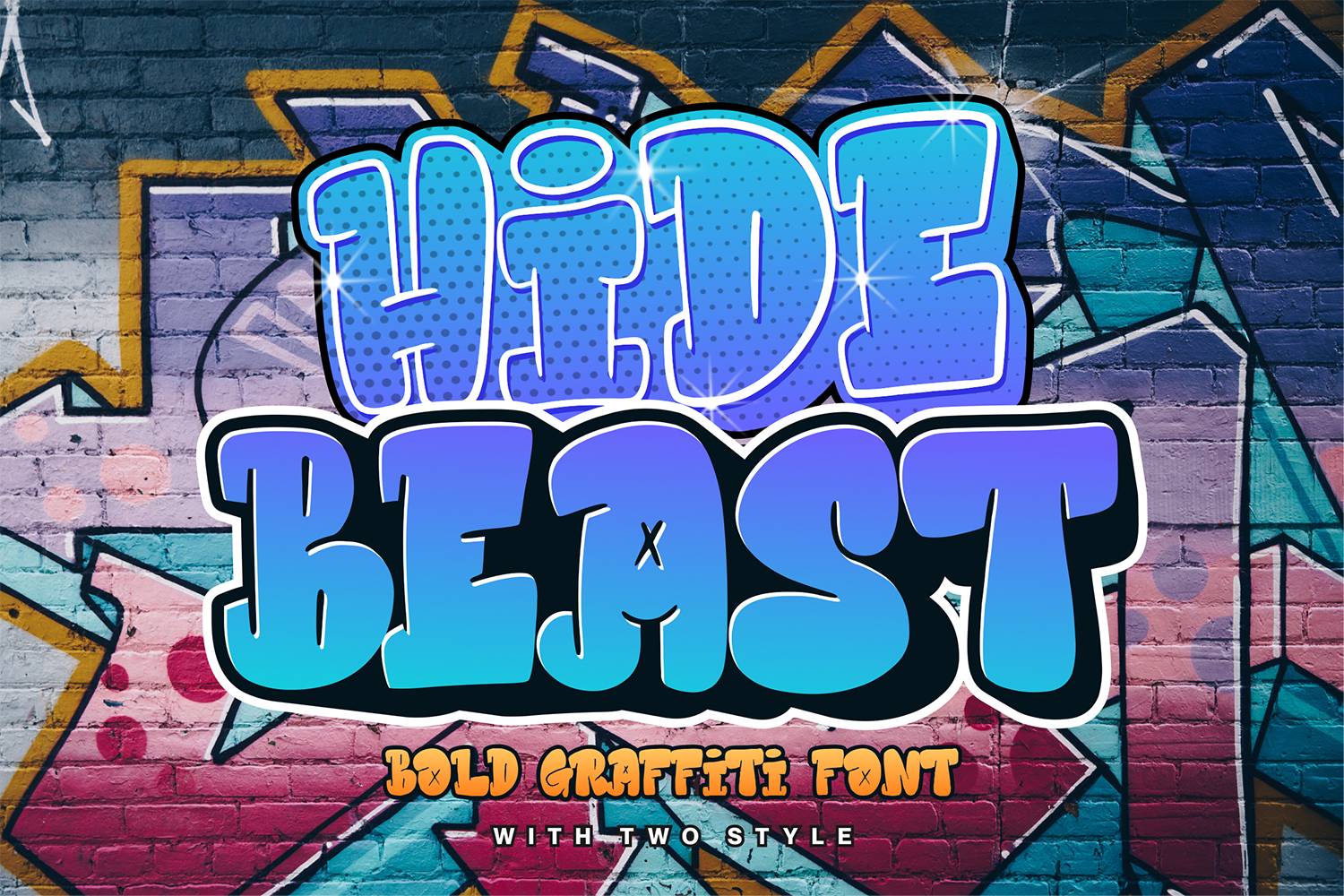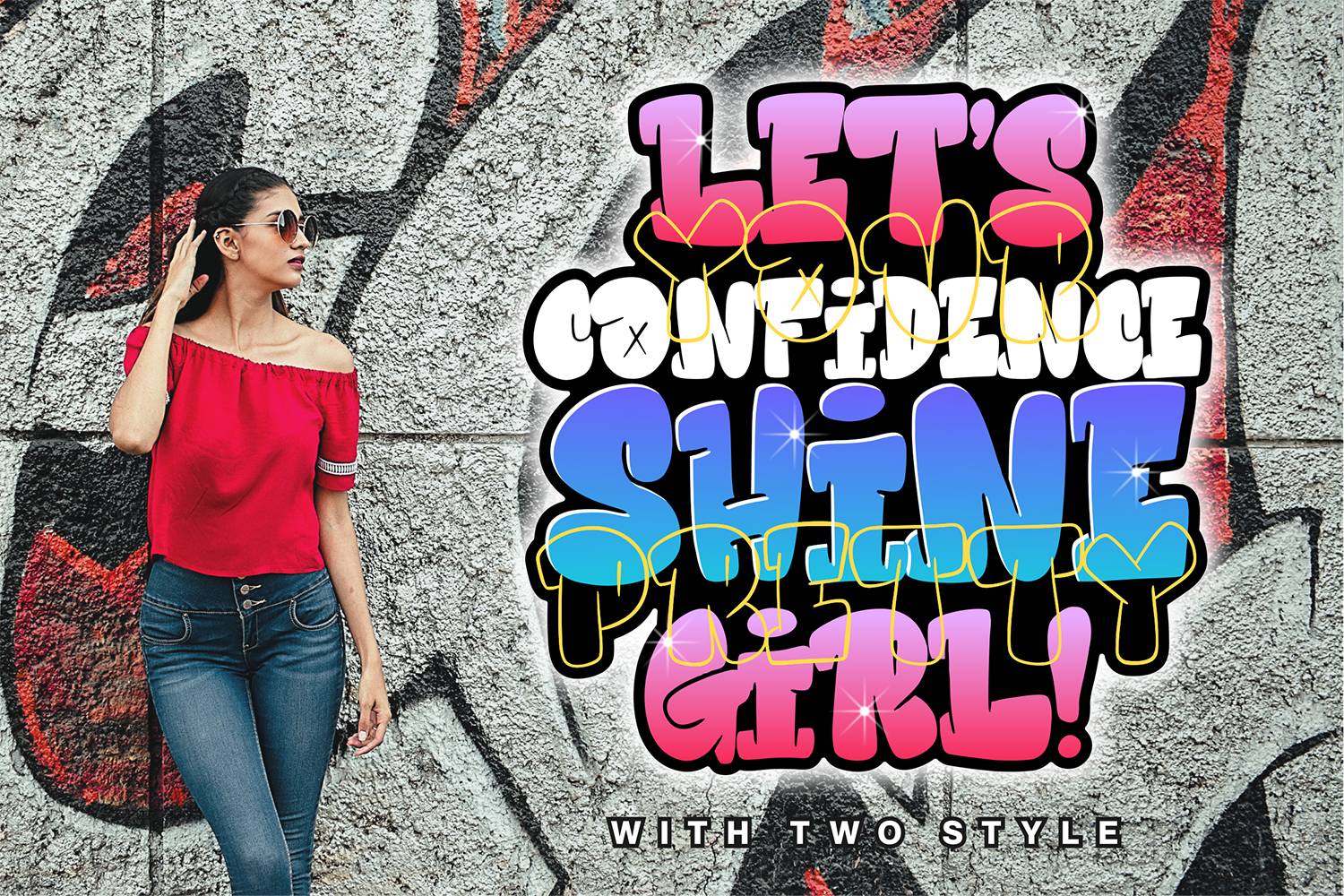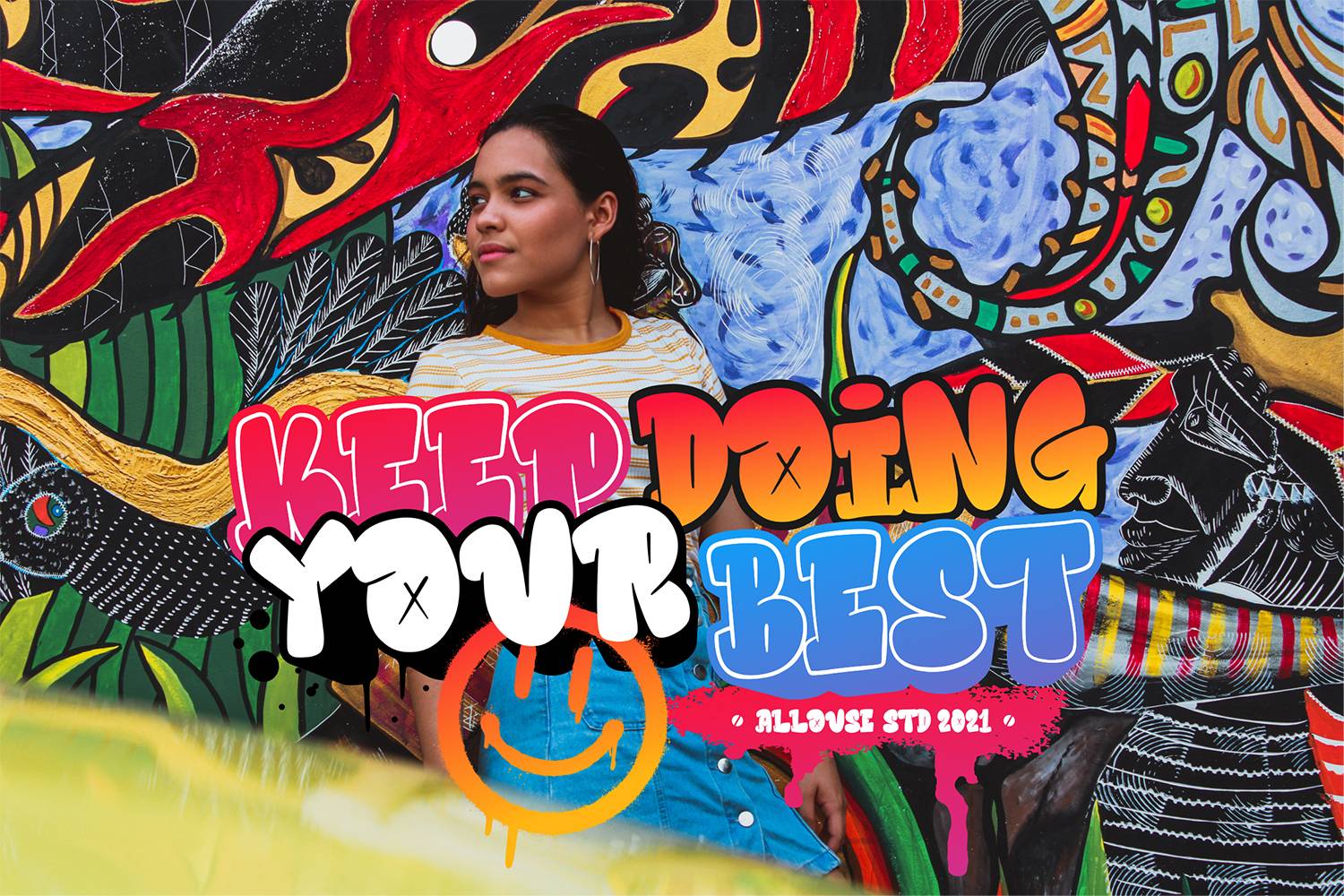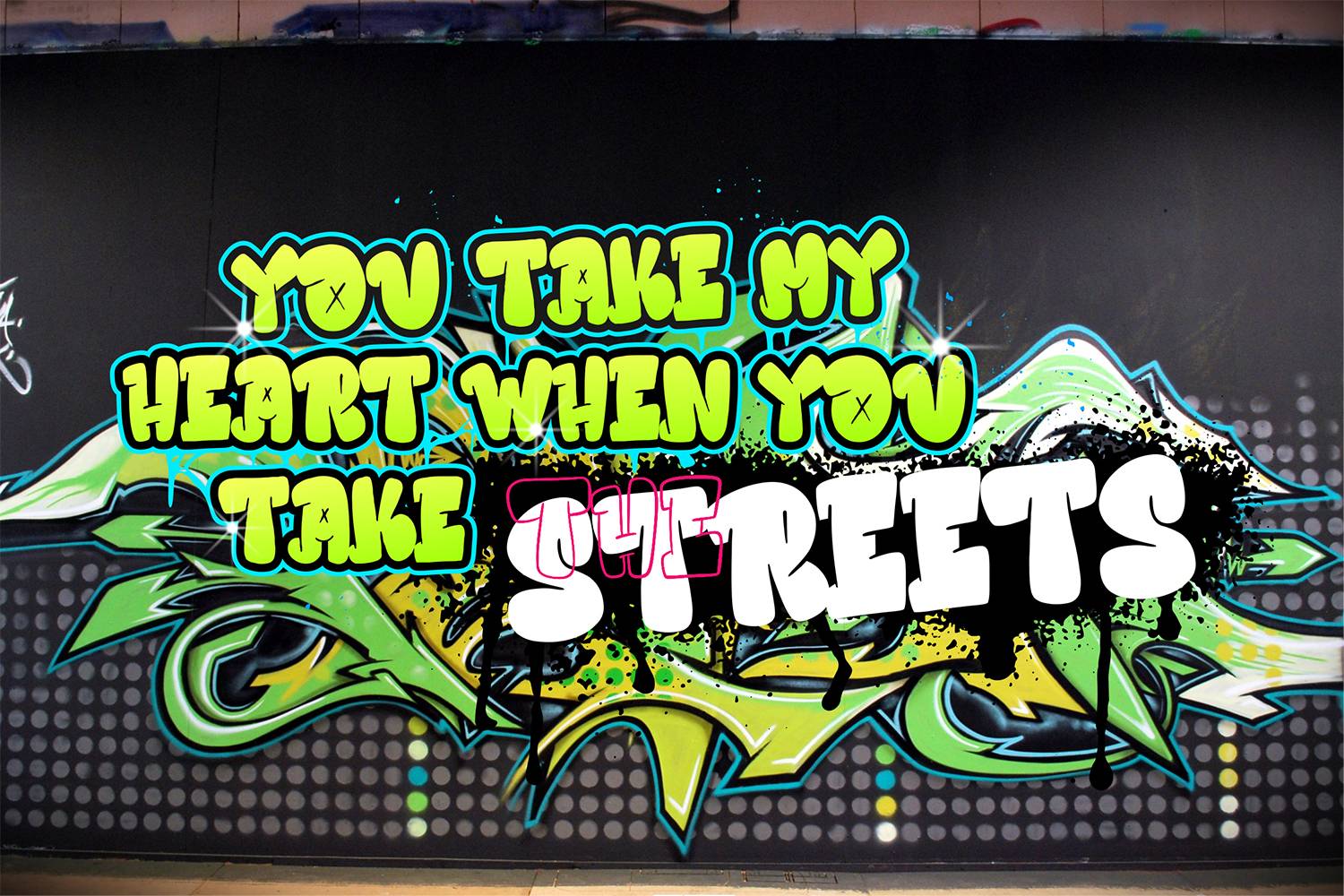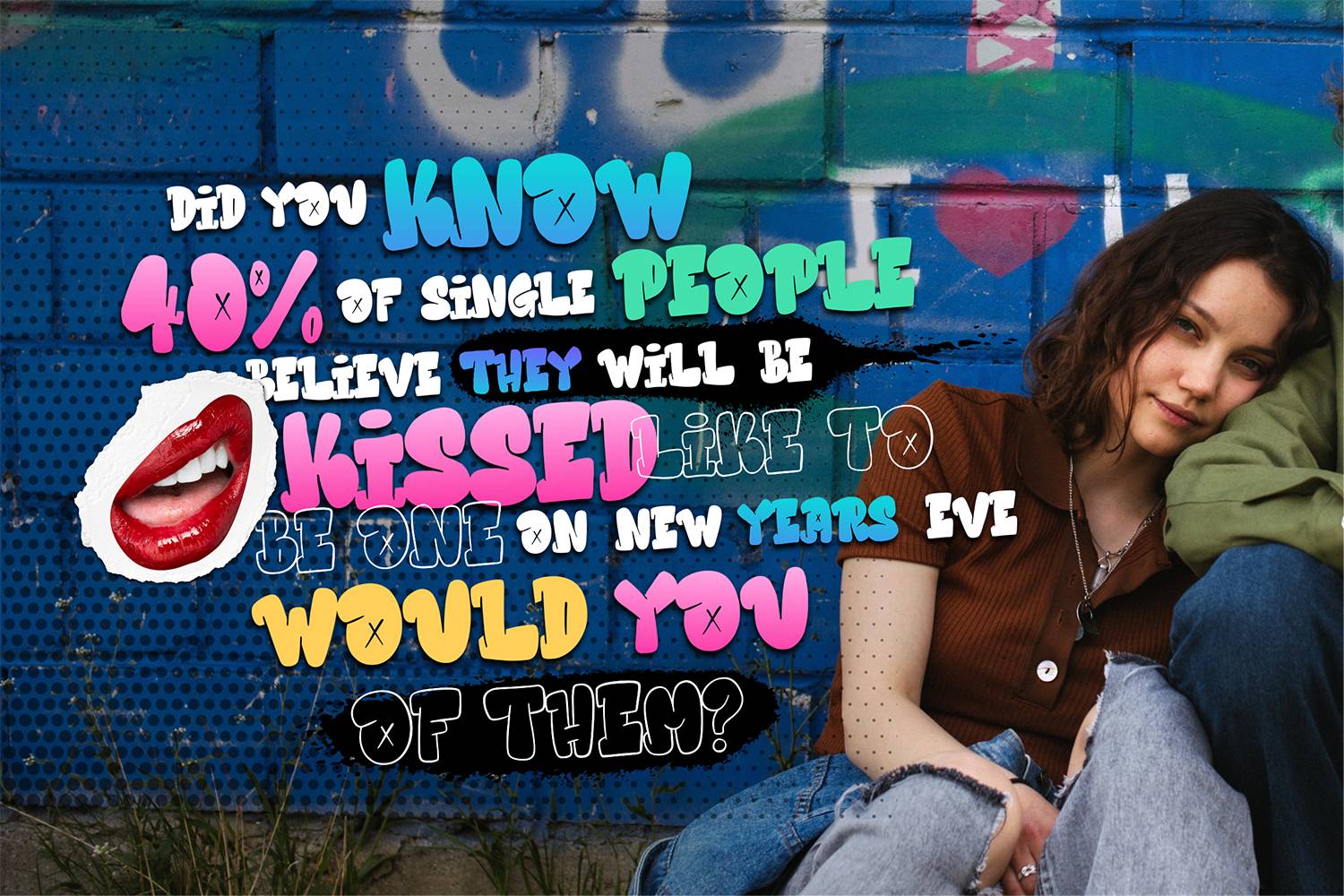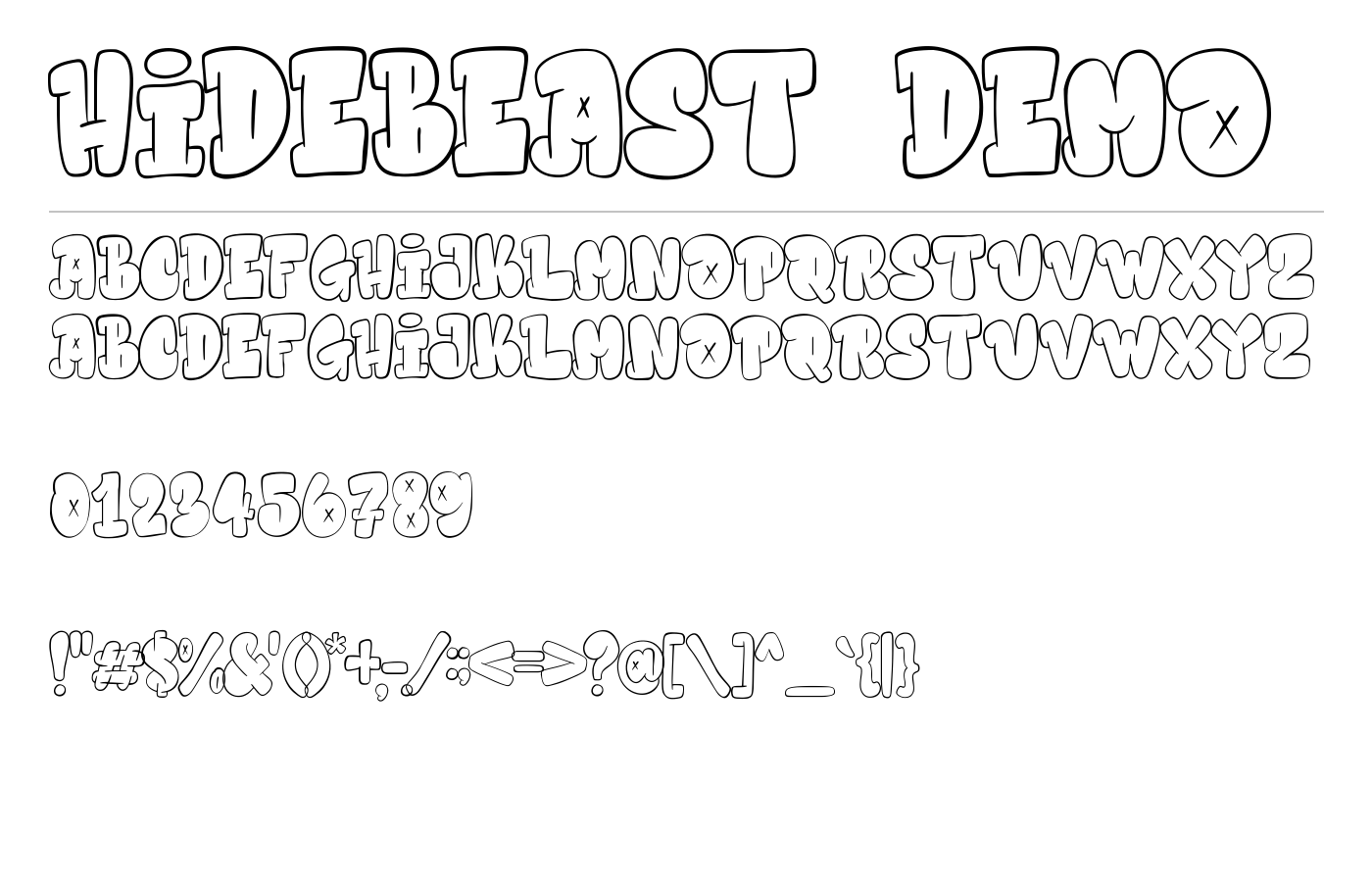
Hidebeast is a playful, chunky display font with a bold, rounded style that feels fun and informal. Its wide letterforms and quirky details like the "X" shapes inside characters give it a whimsical, cartoon-like personality, making it perfect for creative projects, children's designs, or eye-catching headlines. This font shines in casual branding, posters, and any setting where a lively, approachable vibe is desired.
Hidebeast Font
About Hidebeast Font
| Font family | Hidebeast Font |
| Designer | Allouse Studio |